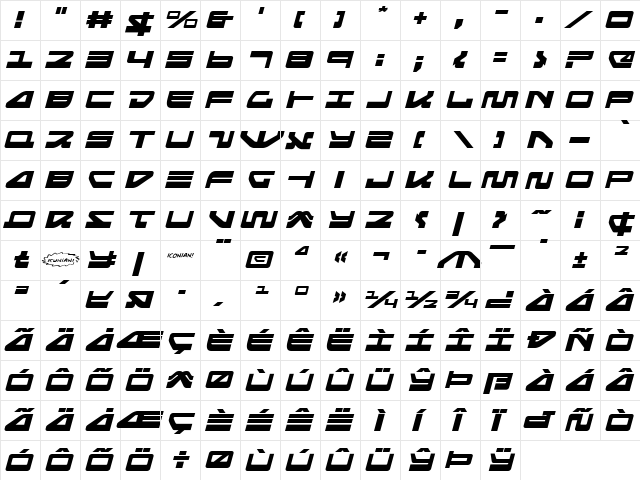
Searider Falcon Expanded Italic Expanded Italic
Design Context for Searider Falcon Expanded Italic Typeface
Searider Falcon Expanded Italic is a composed and adaptable typeface that performs quietly and consistently across a wide range of design contexts. Its italic angle brings a sense of urgency and motion to the letterforms.
Pro Tip: Use Searider Falcon Expanded Italic for emphasis, pull quotes, and subheadings where its slanted energy can add rhythm to the layout.